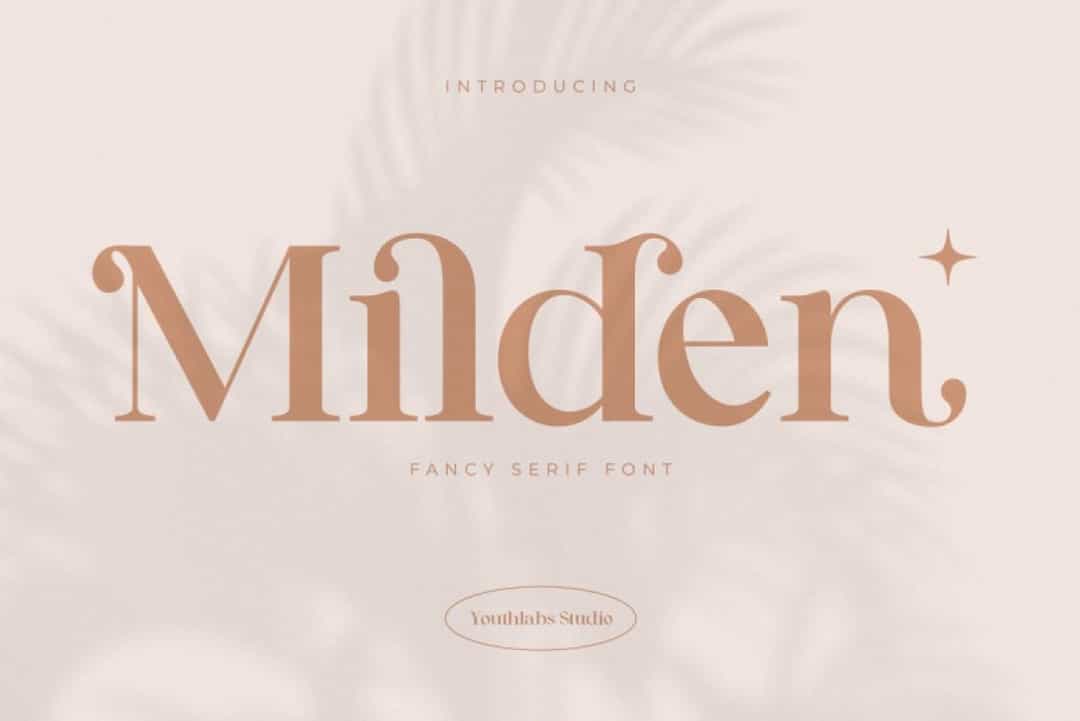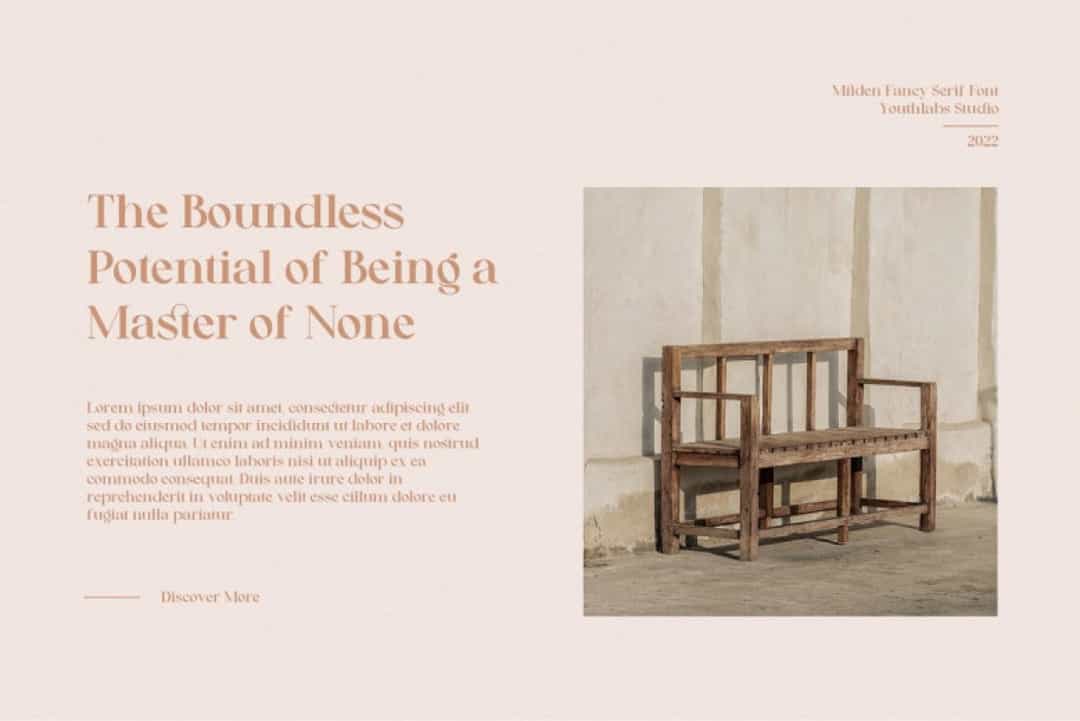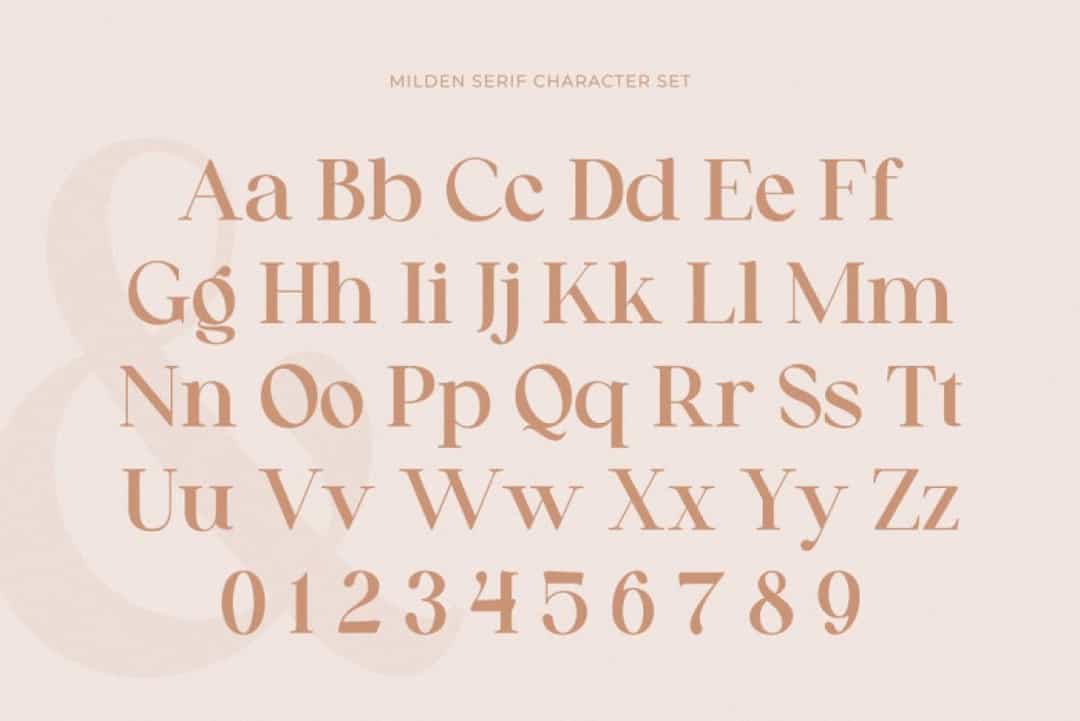
Milden Font
Milden is a serif font which brings elegant style to any design project, perfect for branding fashion brands or for personal designs and typographies alike. Offering multiple font options makes applying design features simpler; use Milden in designs, typographies, magazines advertising campaigns, branding projects or fashion businesses!